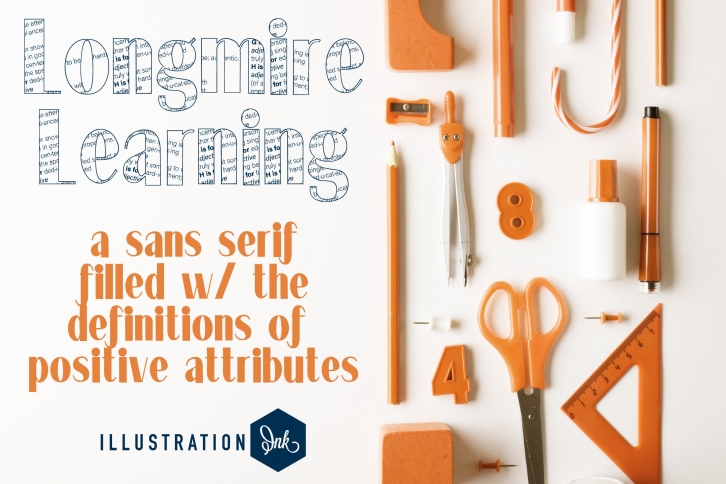
Longmire Learning is a cool and incredibly interesting display font filled with words and their definitions. Add it to your most creative ideas and notice how it makes them come alive!